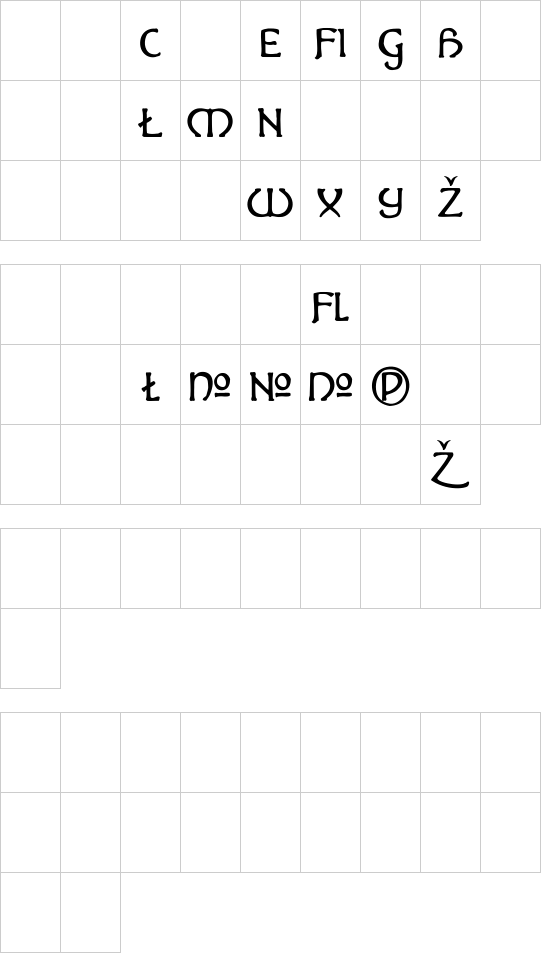
Hadley Alts is a decorative display face built around alternate letterforms, offering stylish variations that let you swap in distinctive characters for a custom look. The base shapes carry a confident flair, with the alternates adding swashes and twists for headlines that want flexibility.
It suits fashion branding, magazine headlines, boutique signage, and elegant social graphics where characterful type fits. The alternates reward experimentation at display sizes. Hadley Alts is free to download as a TrueType file, and you can preview it with your own text to see how the standard and alternate letterforms read across a headline before downloading.